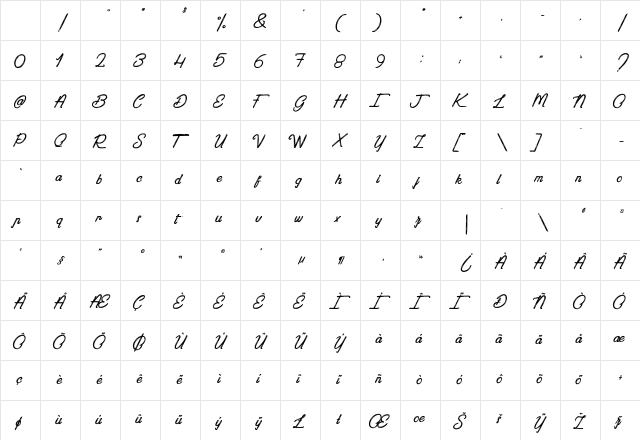
Complete Painting in the Sunlight Regular glyph index. Displaying only characters natively supported by Painting in the Sunlight Regular font.
Painting in the Sunlight is a composed and adaptable typeface that performs quietly and consistently across a wide range of design contexts. Its slender proportions lend an understated elegance to any composition.